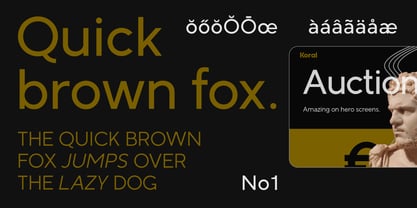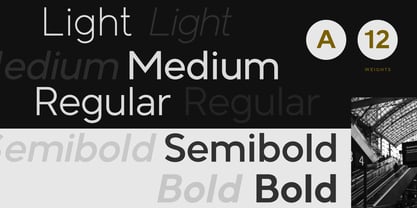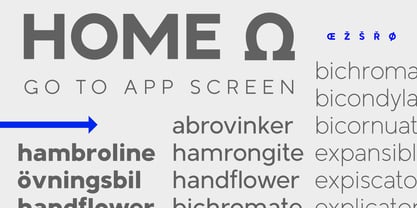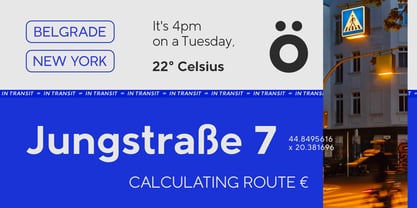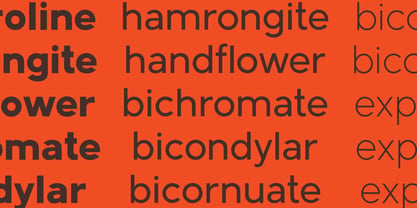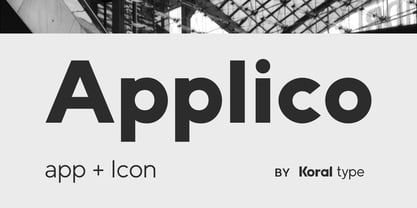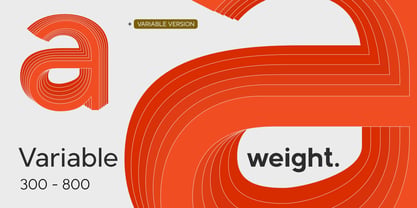
Applico
by Koral Creative
The Applico Font Family was designed by Milos Kozlovacki and published by Koral Creative. Applico contains 13 styles and family package options. More about this family
Applico is a contemporary typeface designed for clarity, rhythm, and flexibility across digital and print environments. Built with clean proportions and a structured visual system, it balances functionality with a confident graphic presence. The typeface is intended for interfaces, editorial layouts, branding, and communication systems where precision and readability are essential.
Designers: Milos Kozlovacki
Foundry: Koral Creative